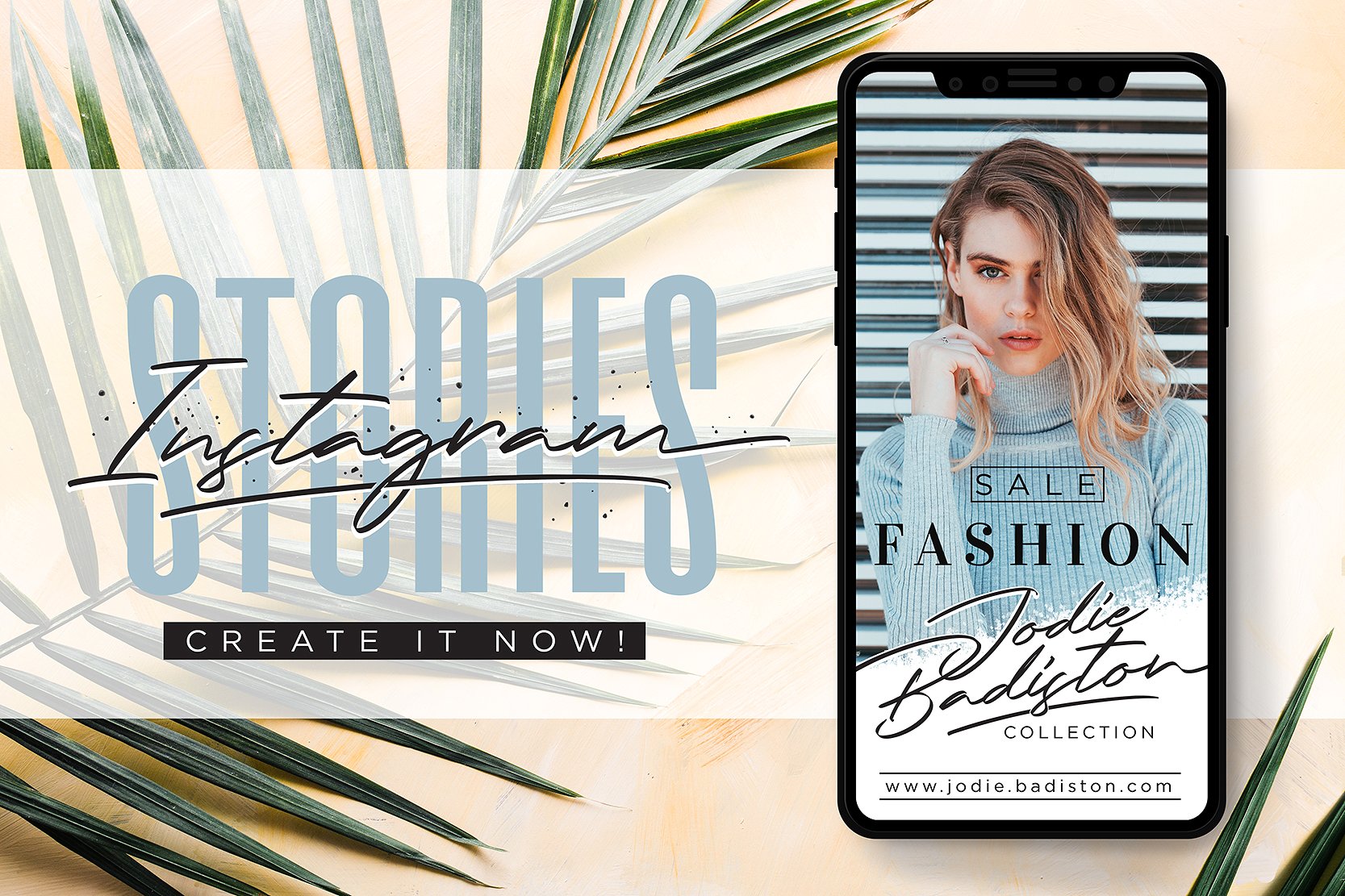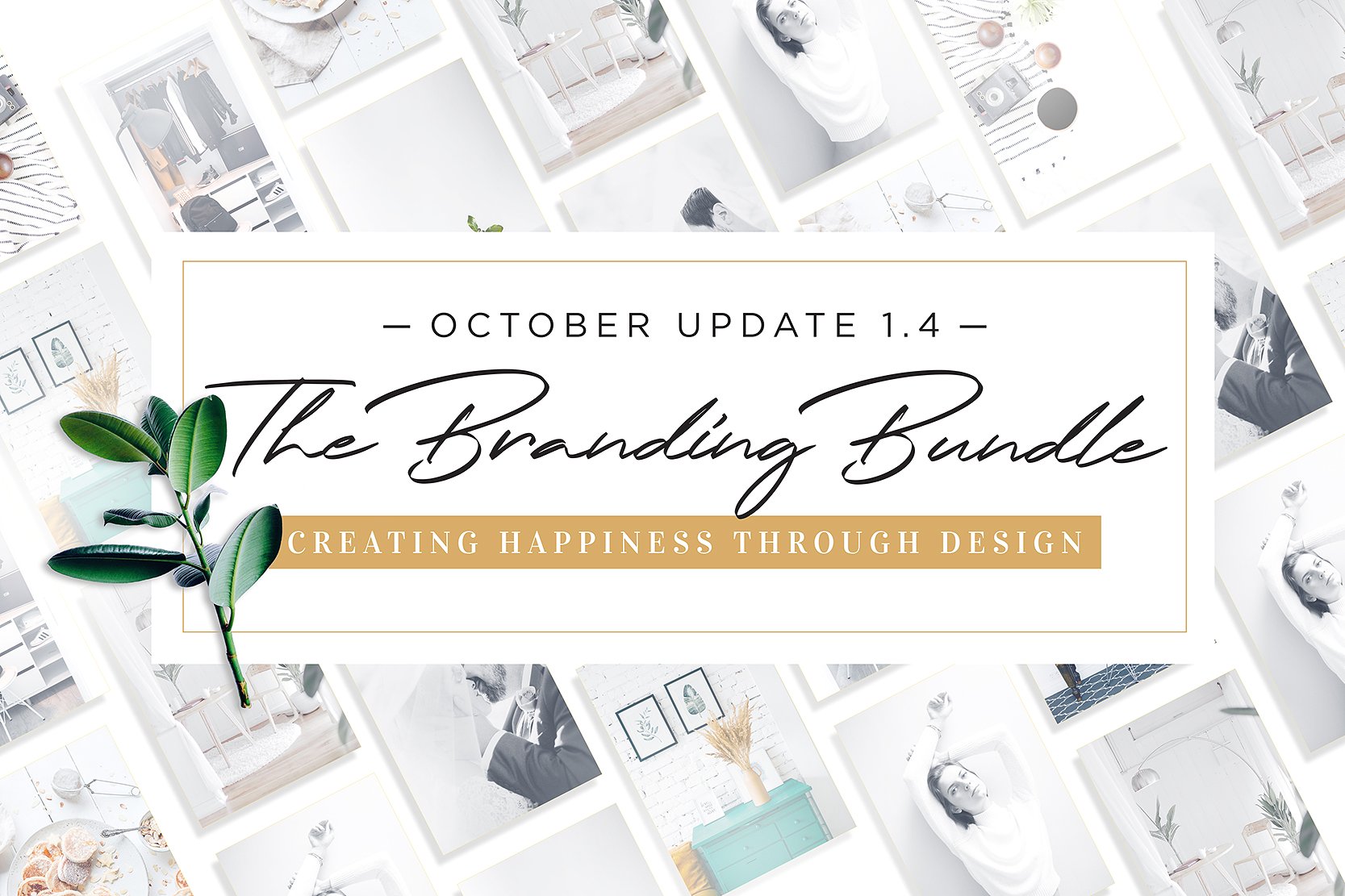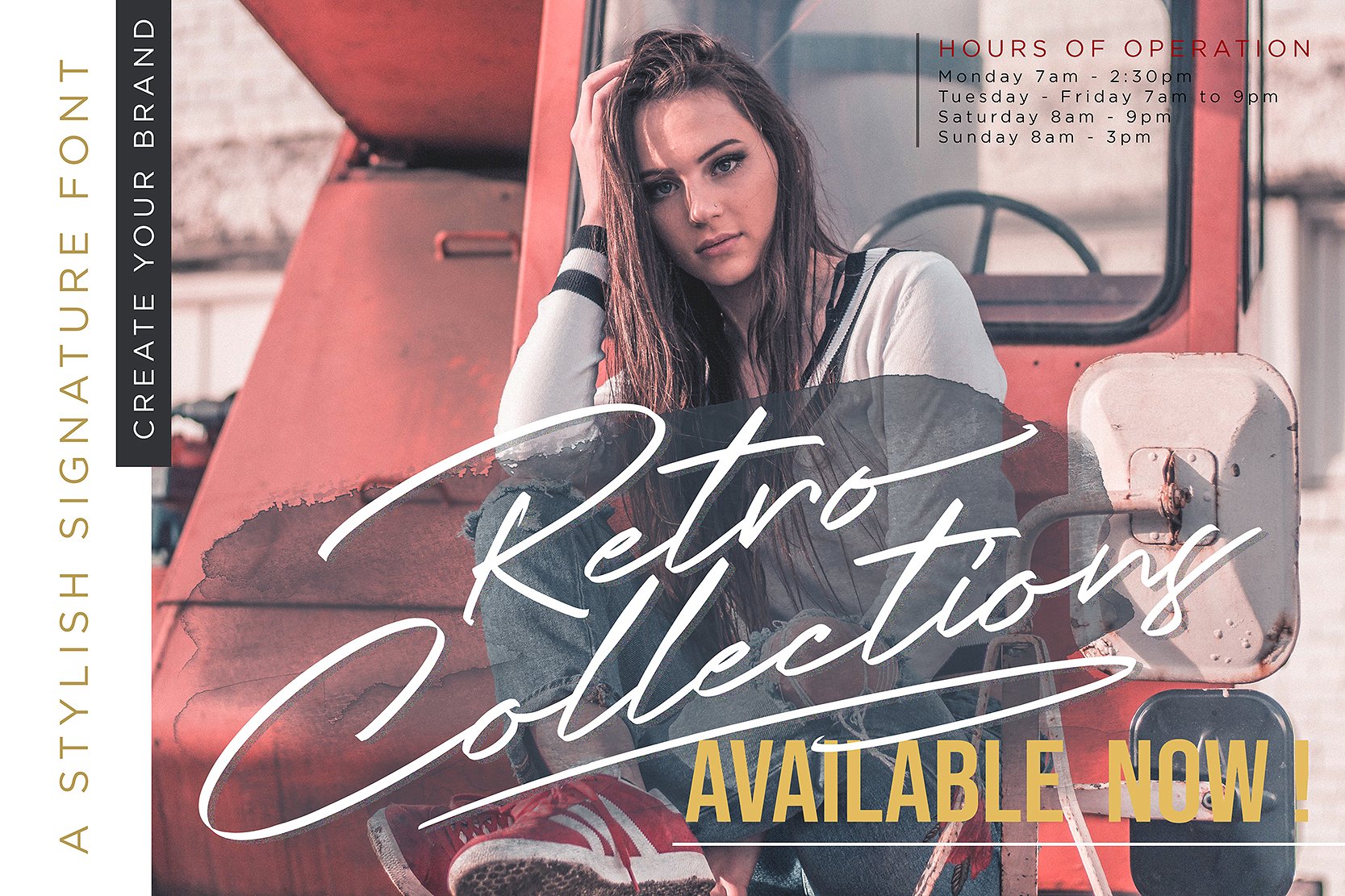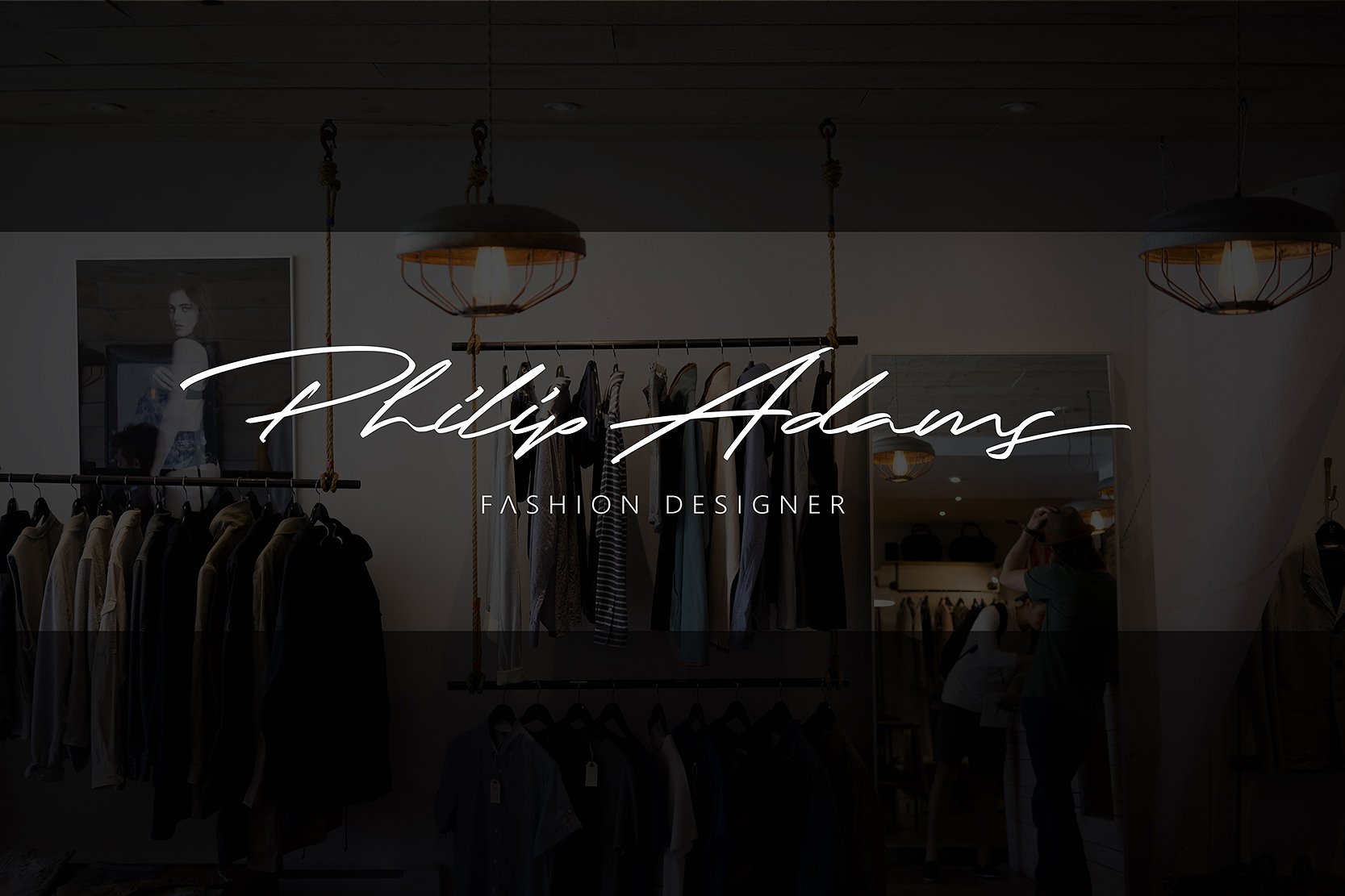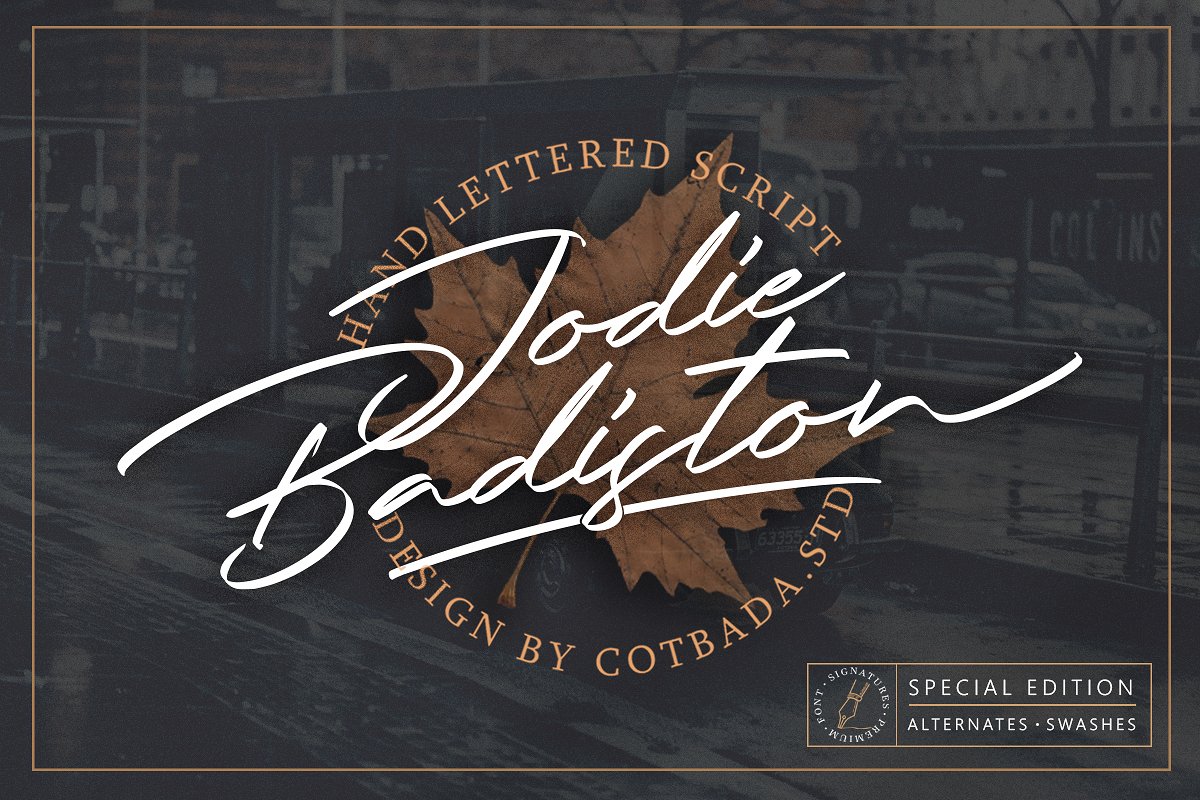
Jodie Badiston Script Font
Hi Ladies and Gentleman ! I’m super proud to introduce, Jodie Badiston Font! is a simple and classy font. Add it to your fonts collection right away. Jodie Badiston Font Script is a unique, cool and modern handwritten font. It’s hand look style makes it perfect for use in all your design projects be it logos, Labels, Packaging design, Blog headlines, Poster, Instagram Design, etc